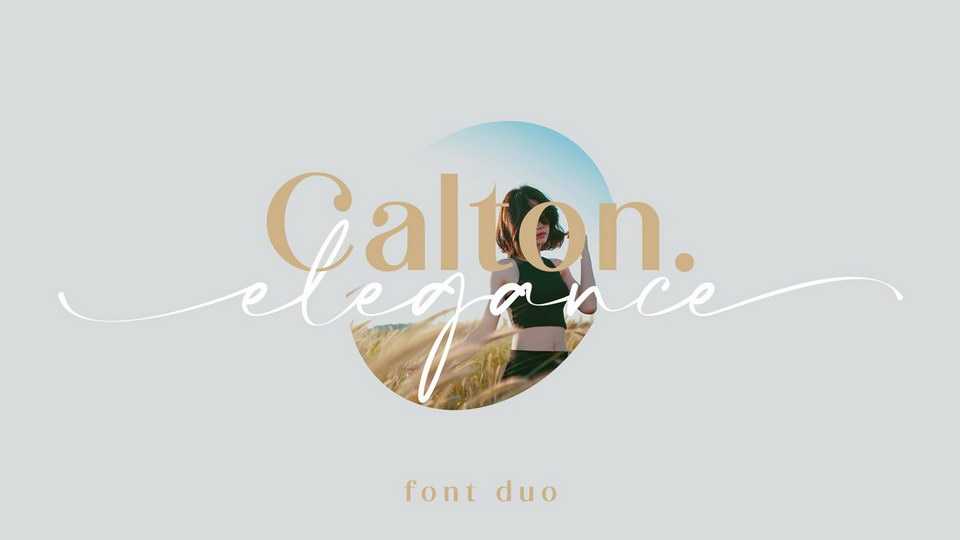
Calton Elegance Font Duo › Fontesk – Download Grátis
Download Calton Elegance typeface, a perfect mix modern calligraphy script and sans-serif font. Calton Elegance was created to help you designing makes gorgeous logos, posters, wedding invitations, blog posts, social media, and more!
Designer: Lemonthe